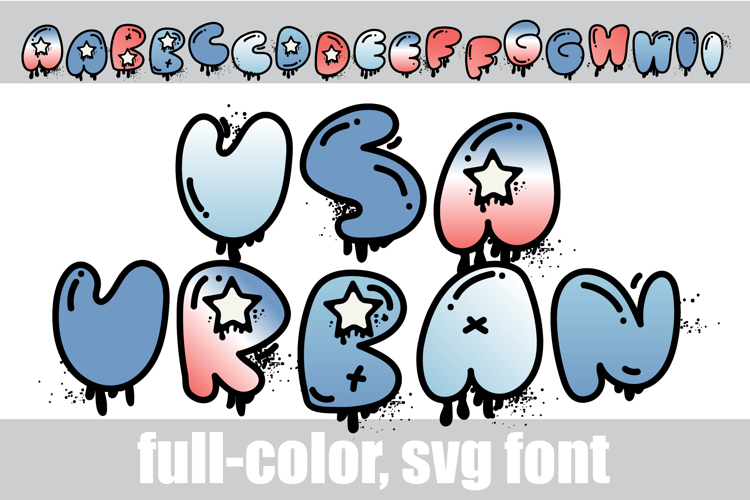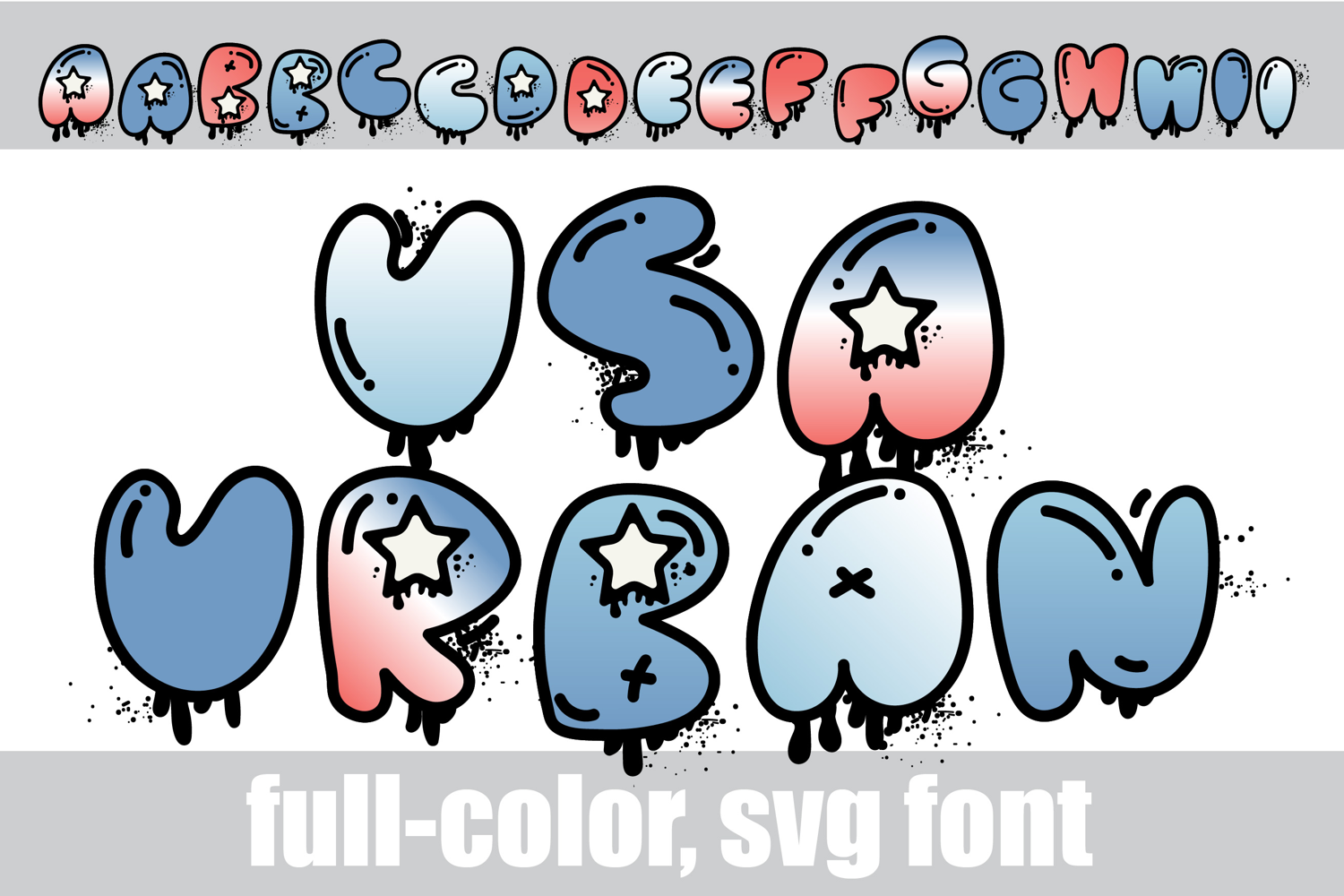
USA Urban Art Too Color Font
This full-color, graffiti-style font is in a pastel patriotic color palette. There is an alt case of additional colors of each letter that you can access through your system's character map.